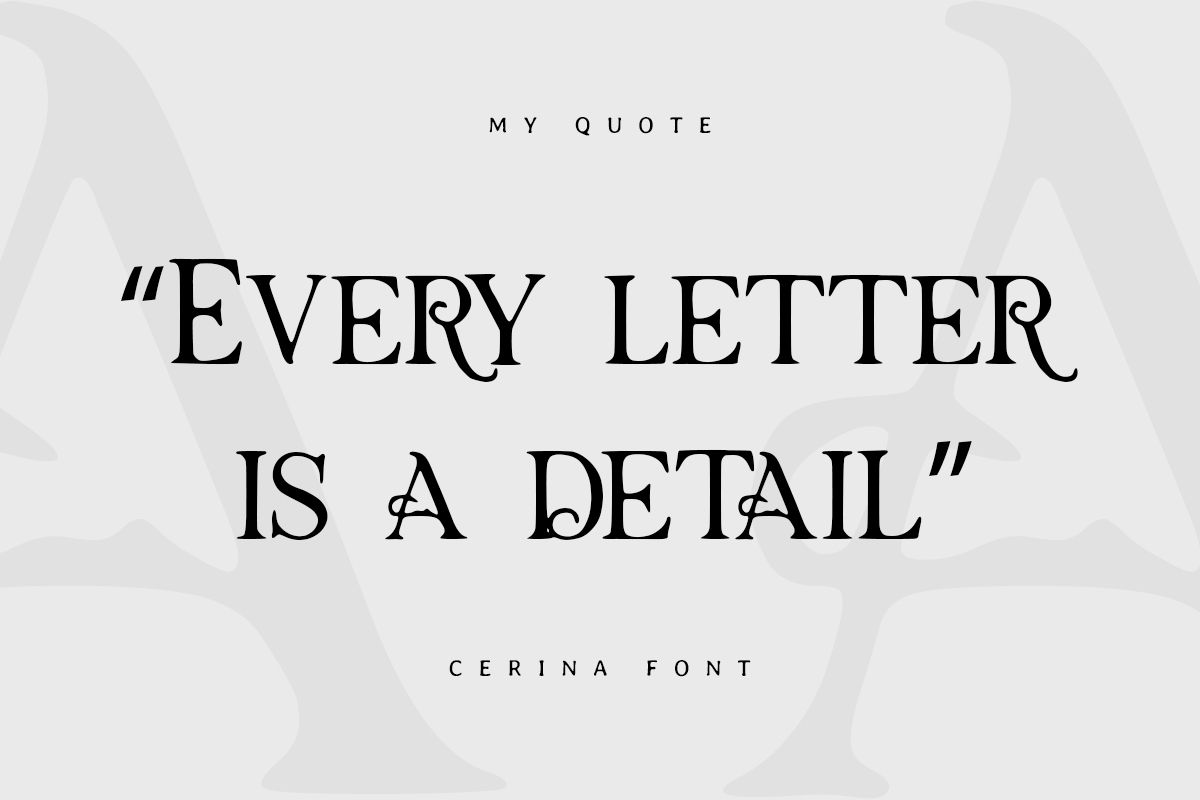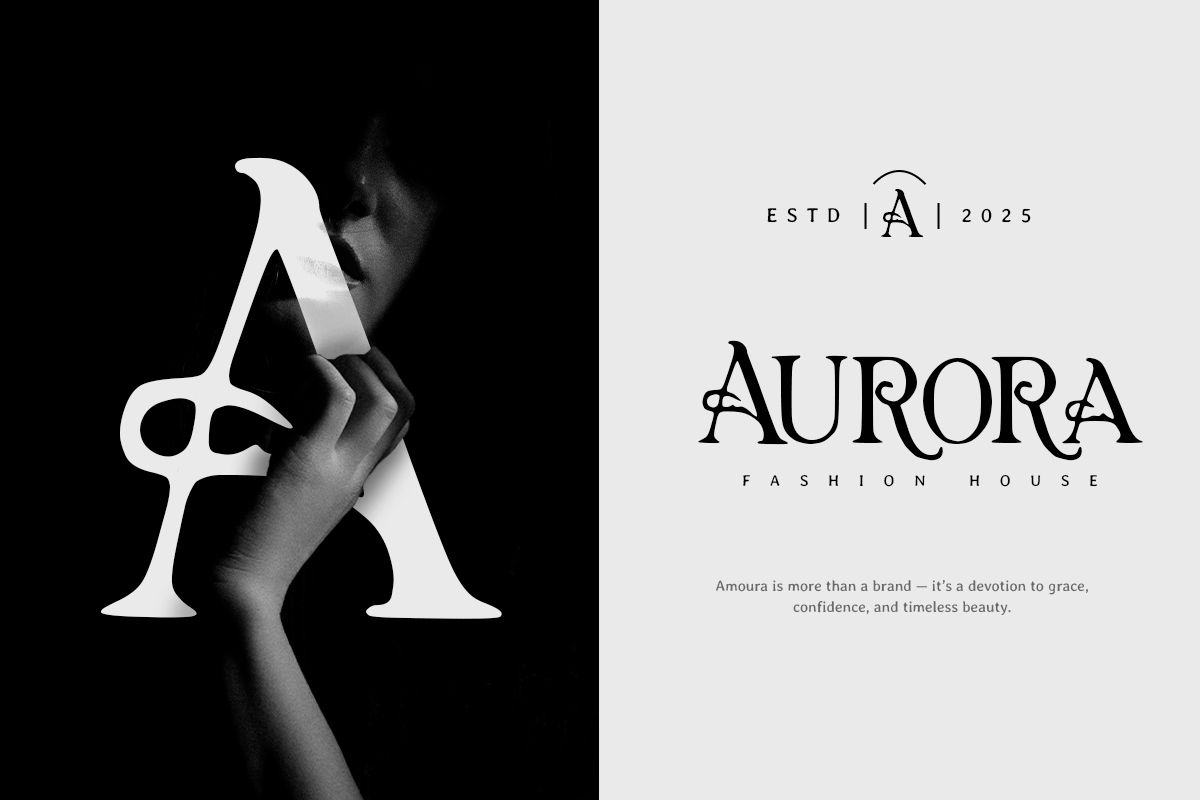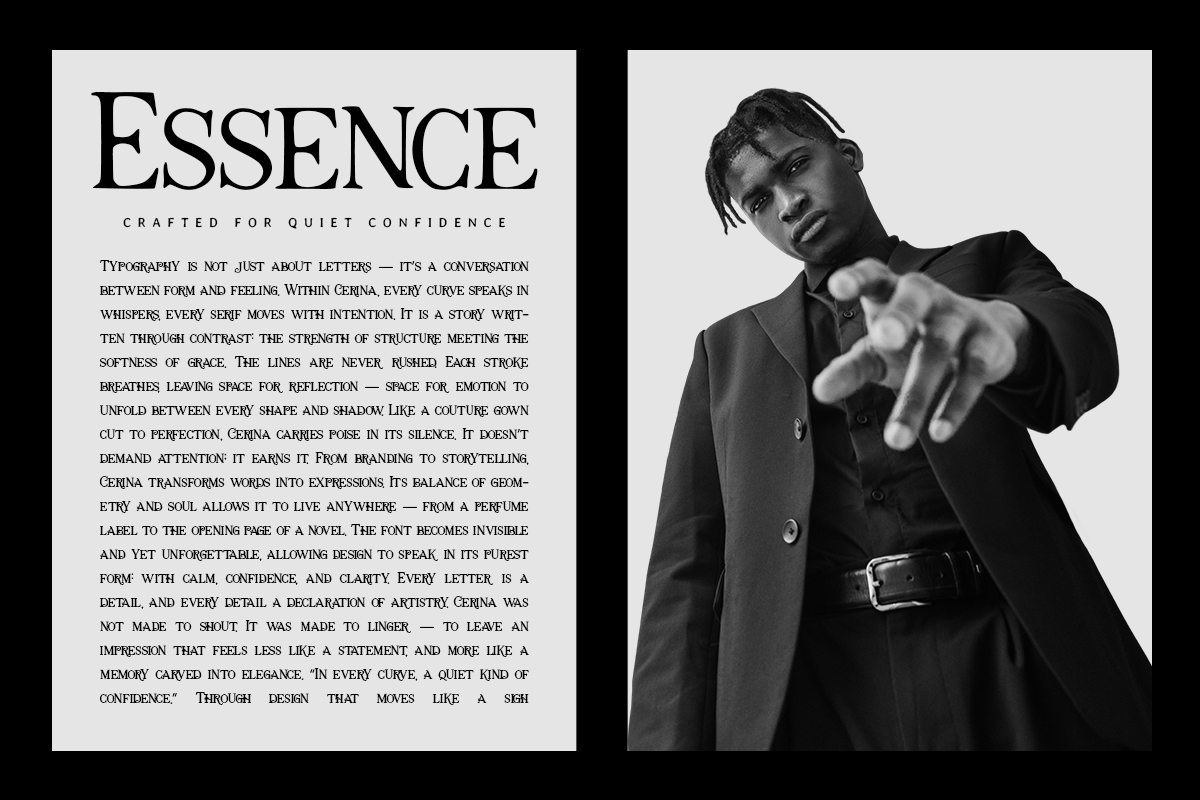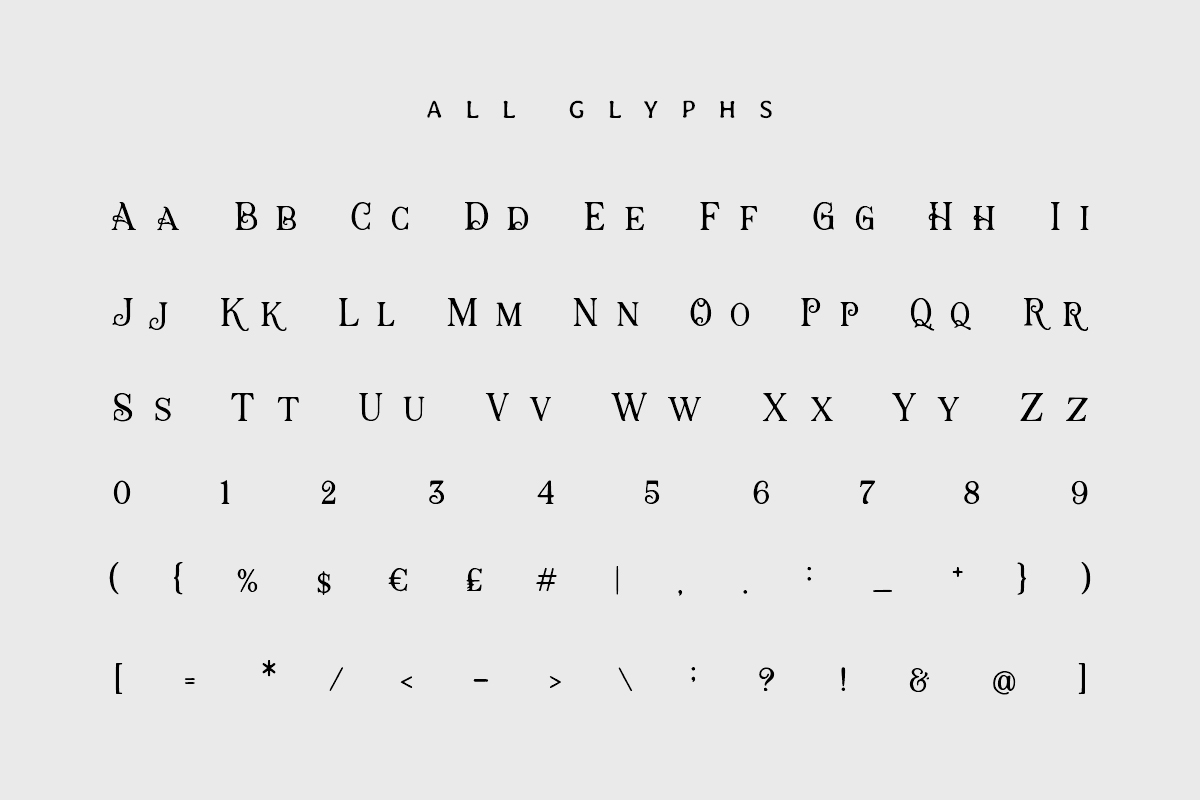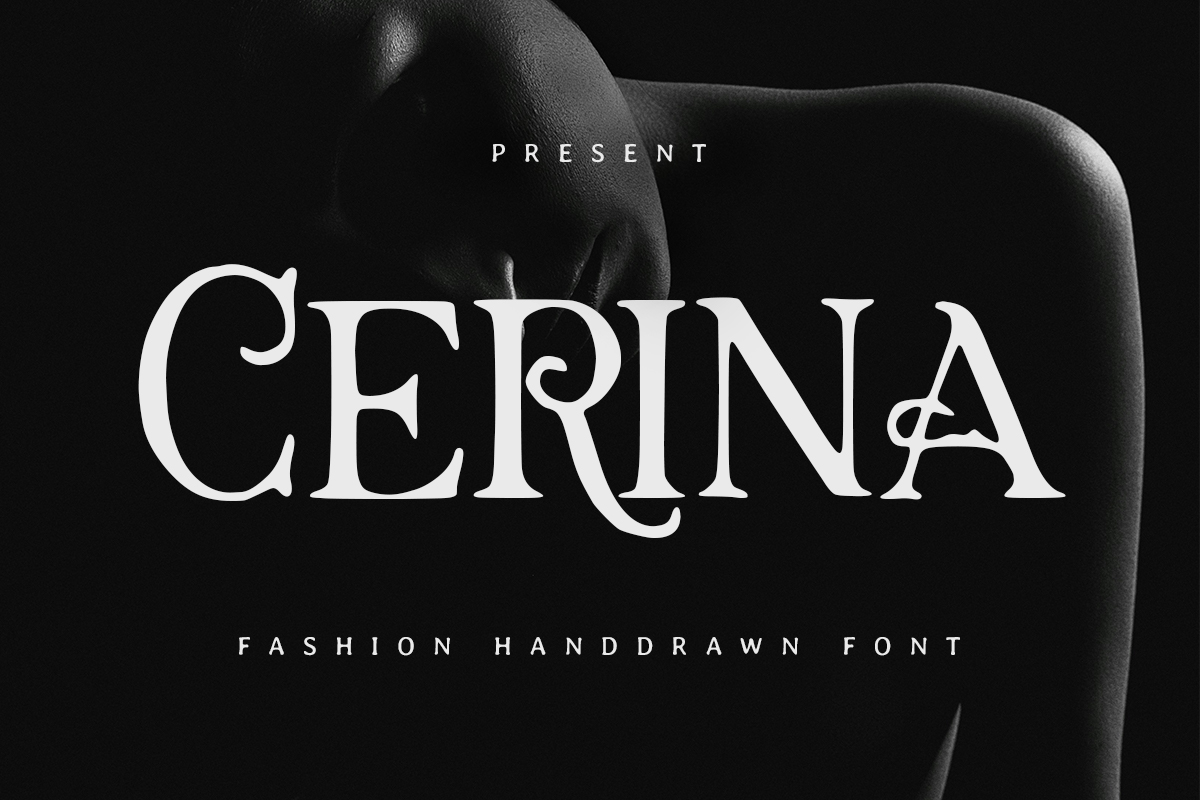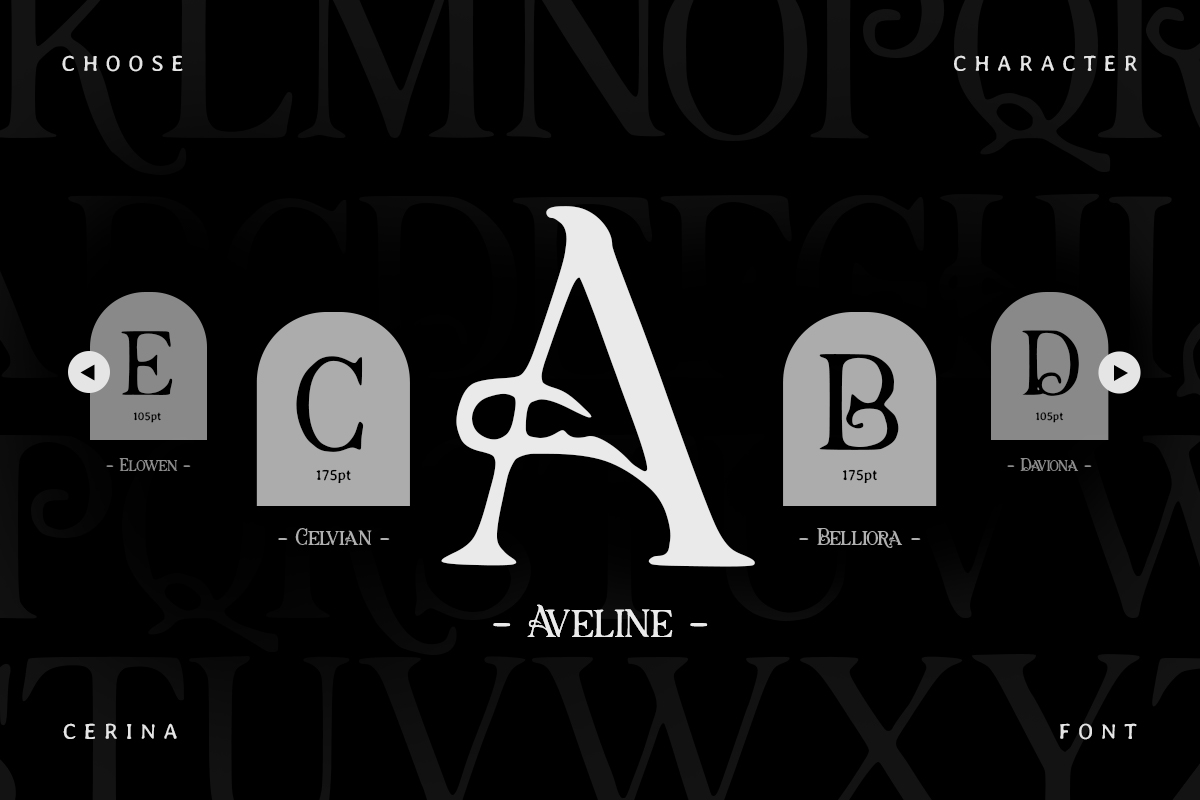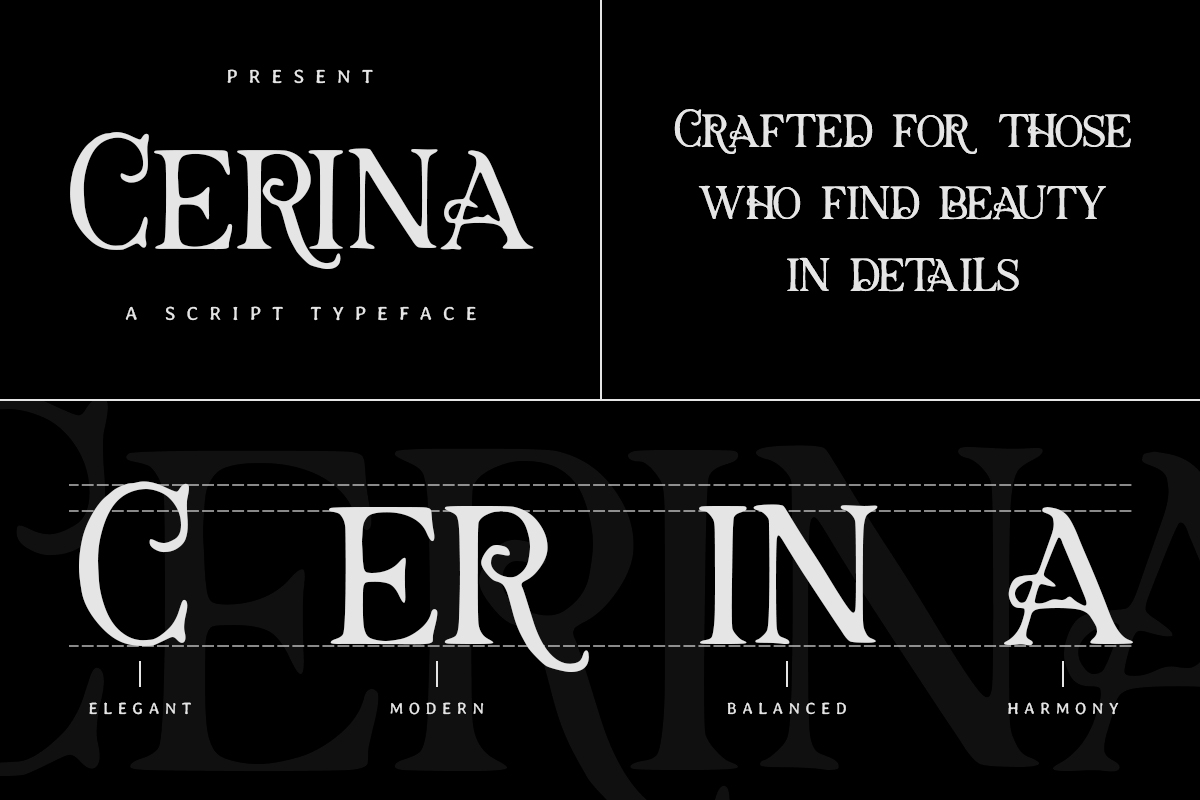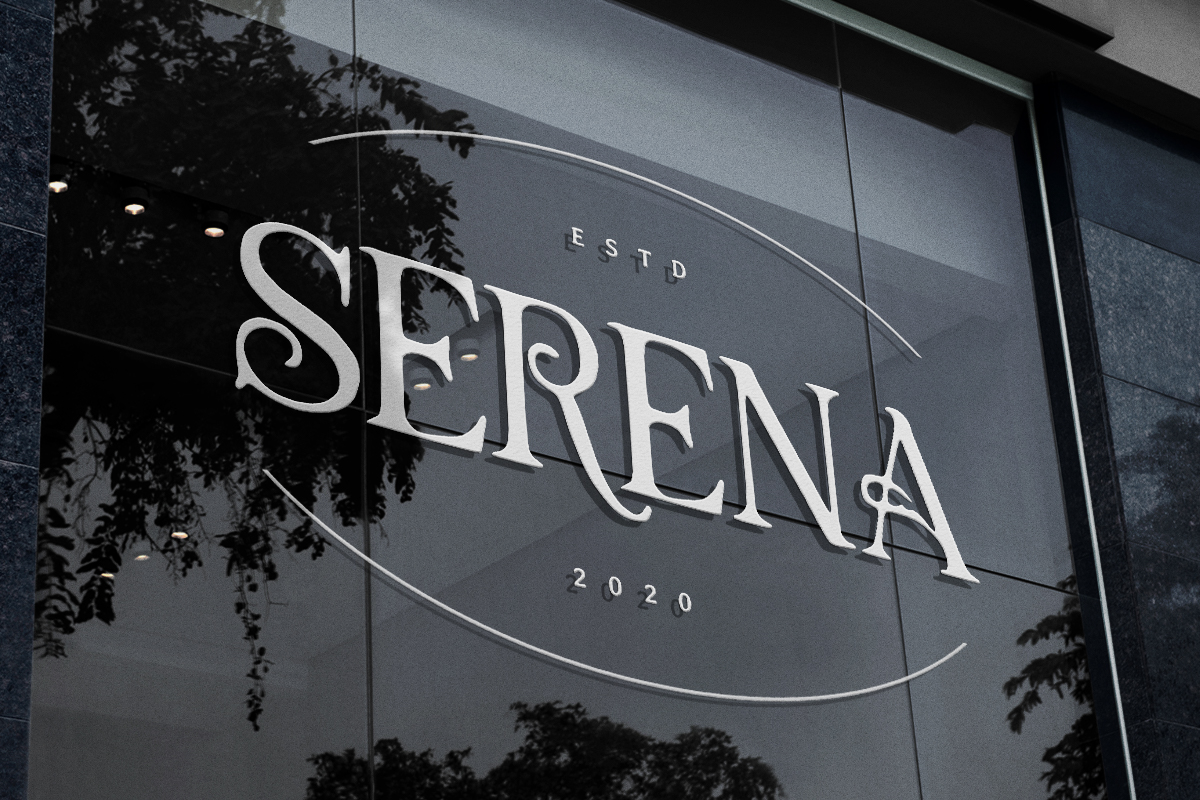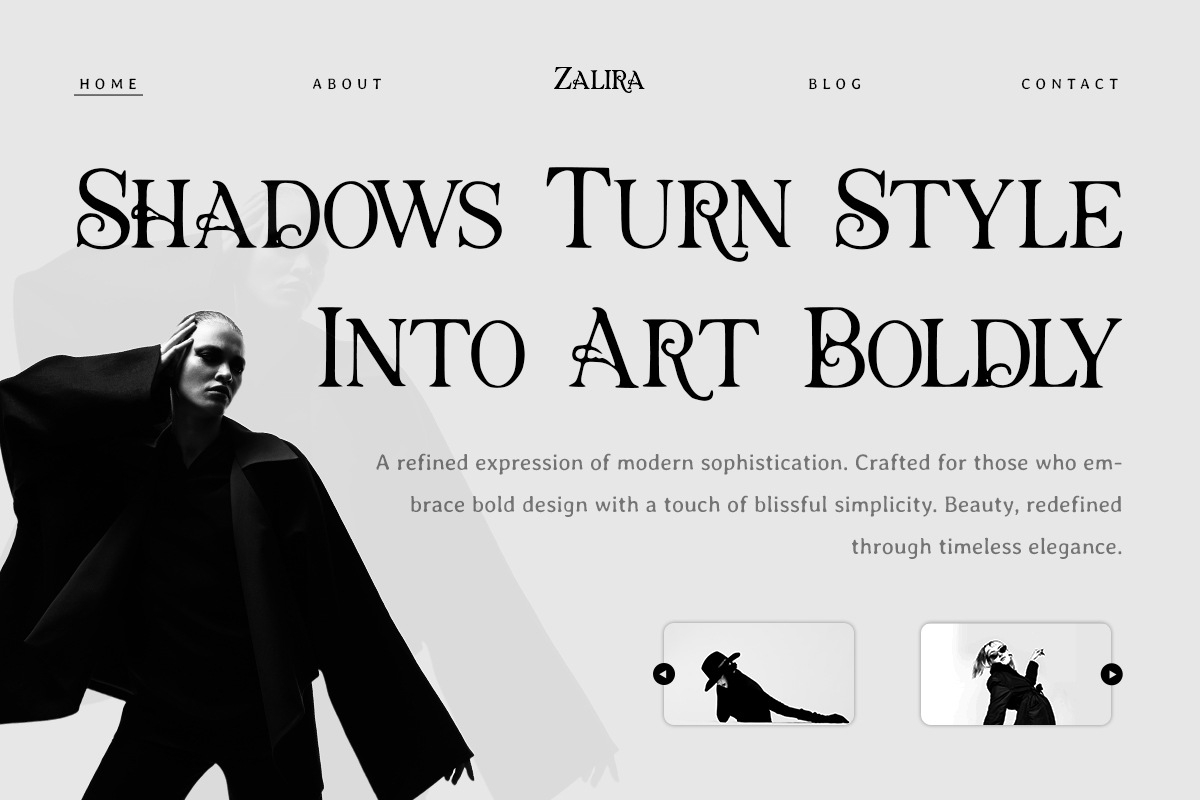
Cerina - Fashion Handdrawn Font
Cerina is a fashion hand-drawn font with elegant, feminine, and artistic character. Each letter is crafted with delicate detailing that delivers an exclusive and premium look—perfect for fashion branding, editorials, cosmetics, and visual projects that need a stylish and luxurious aesthetic.
This font comes in 1 style: Regular, featuring uppercase, lowercase, numerals, and punctuation. Cerina brings a modern-classic charm, ideal for logos, magazine covers, quotes, product packaging, and promotional designs that aim to appear refined and sophisticated.
- Full Character Set: Uppercase, lowercase, numbers, symbols, and punctuation